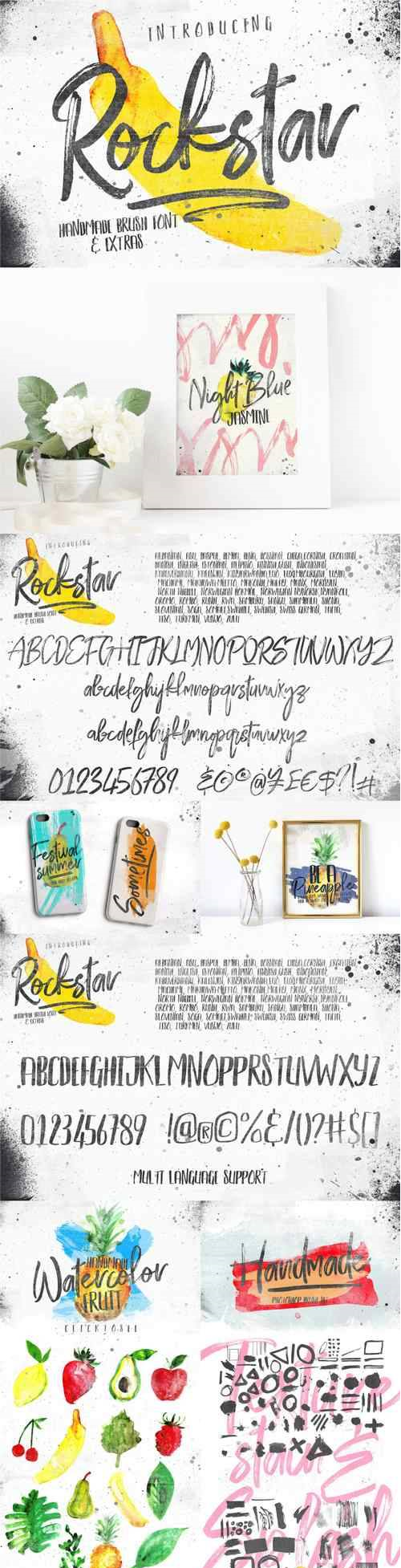
Rockstar Font Duo
Rockstar Font Duo is a handlettered brush typeface features two fonts: Rockstar Script which has alternates & swashes as well, plus another font – Rockstar Display. Rockstar Font Duo contains uppercase and lowercase letters, numbers, symbols, multilingual accents.